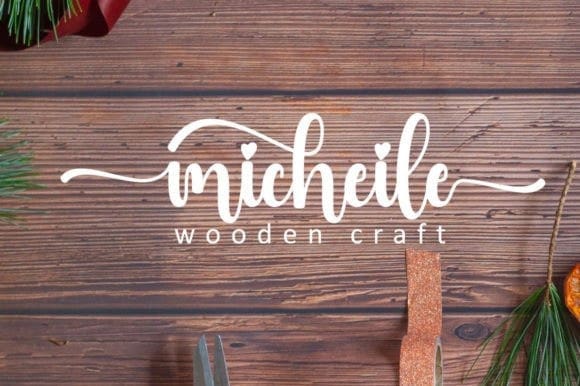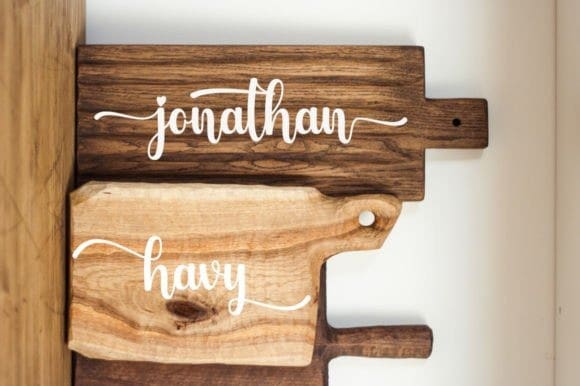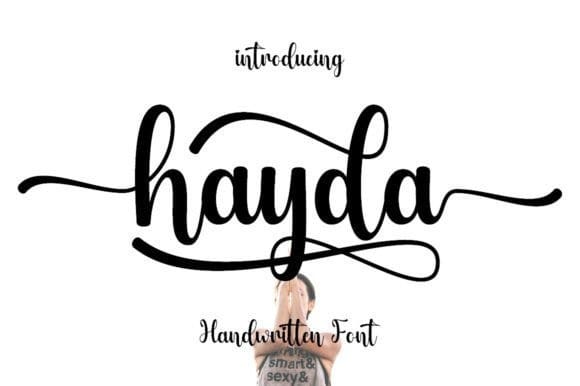
Hayda Script Font
Hayda Script Font, is a stylish and incredibly elegant handwritten font. It looks stunning on wedding invitations, thank you cards, quotes, greeting cards, logos, business cards and every other design which needs a handwritten touch.